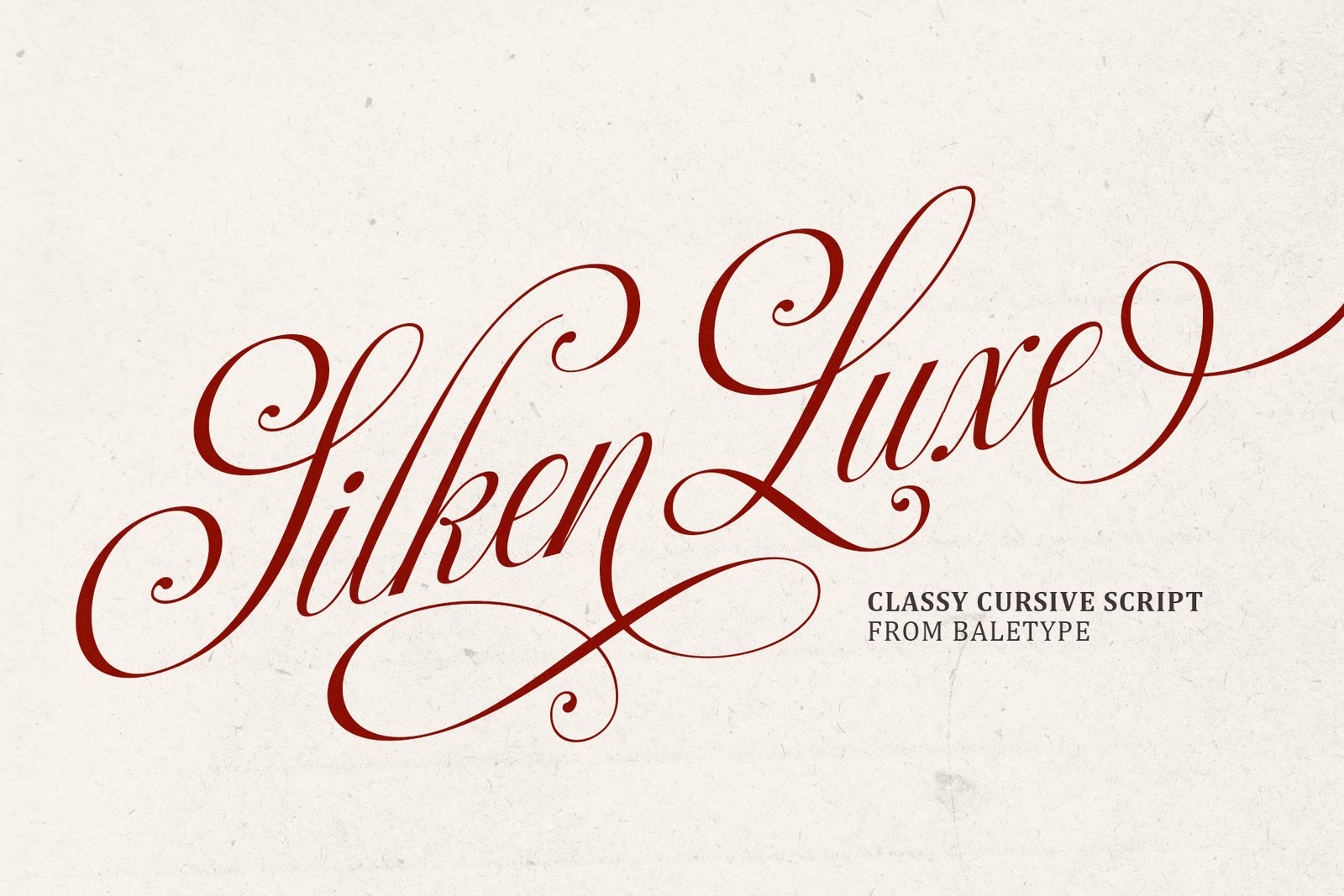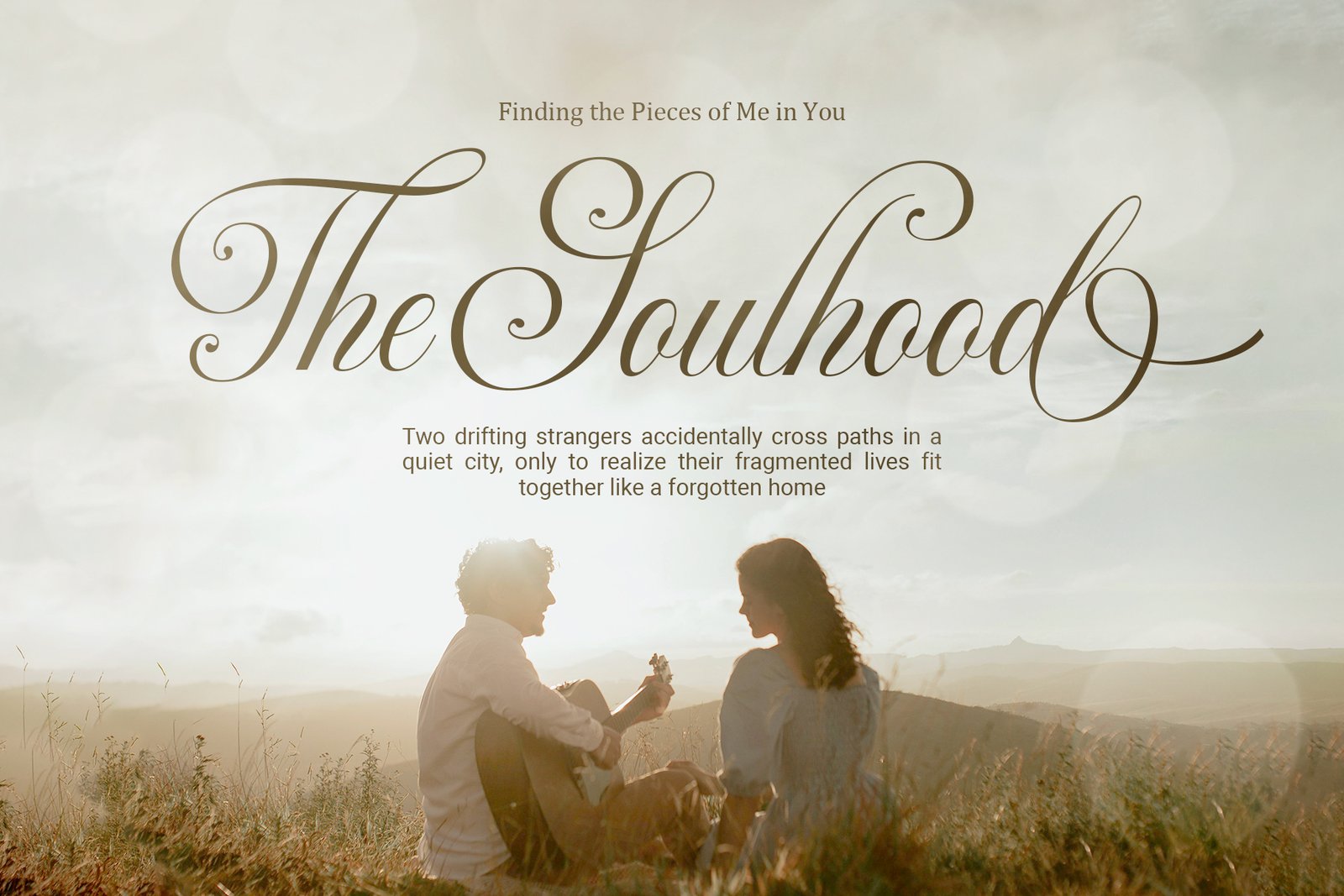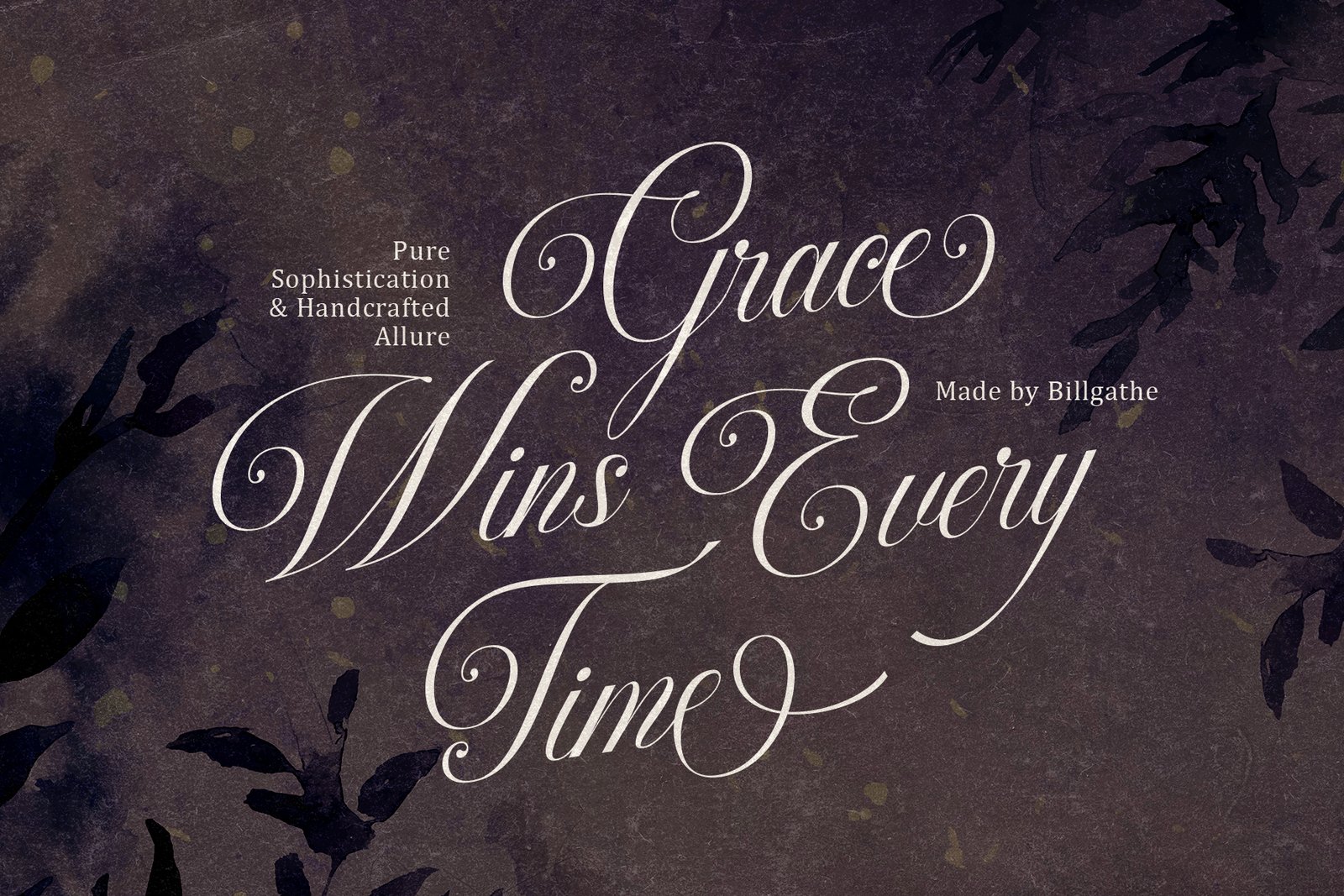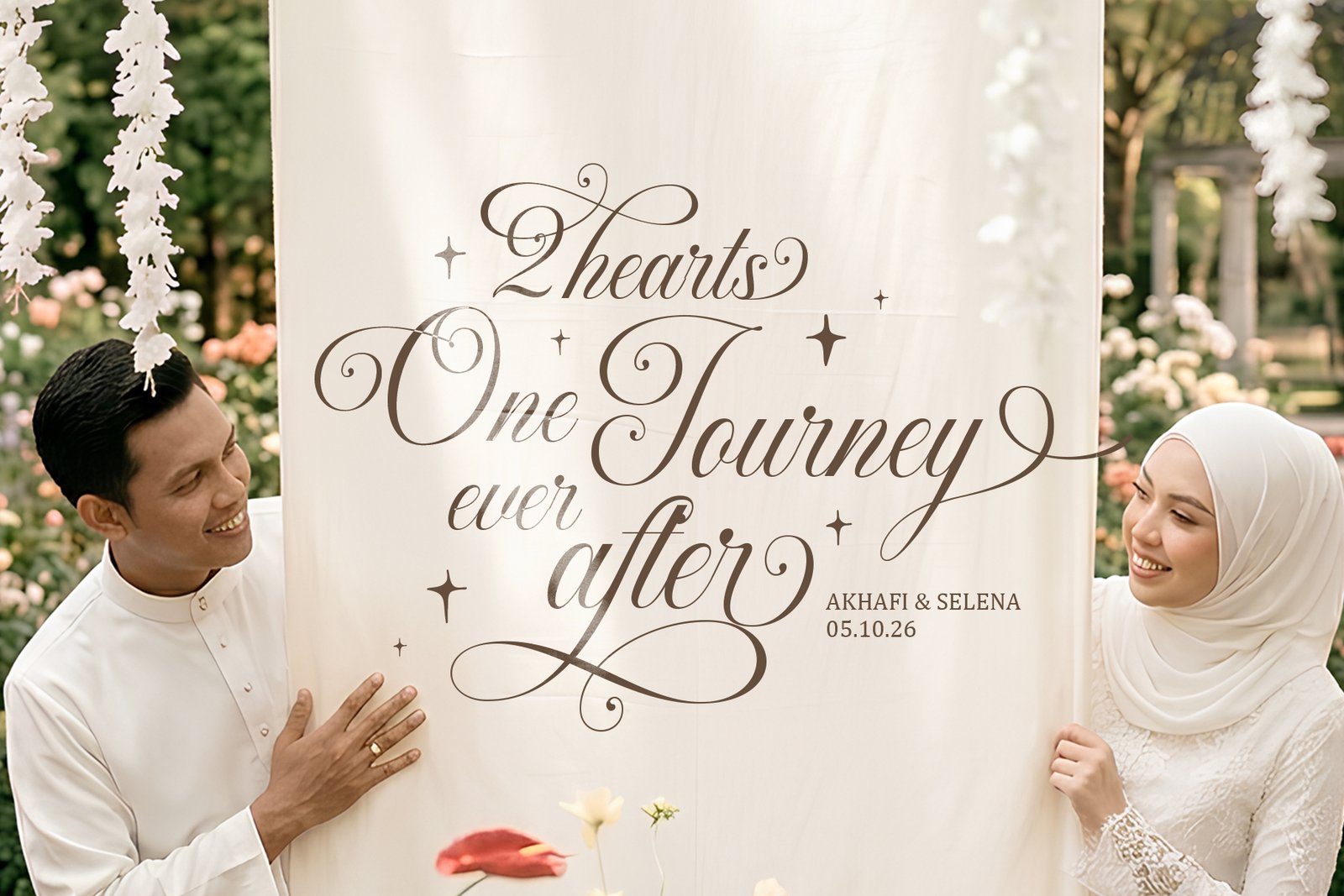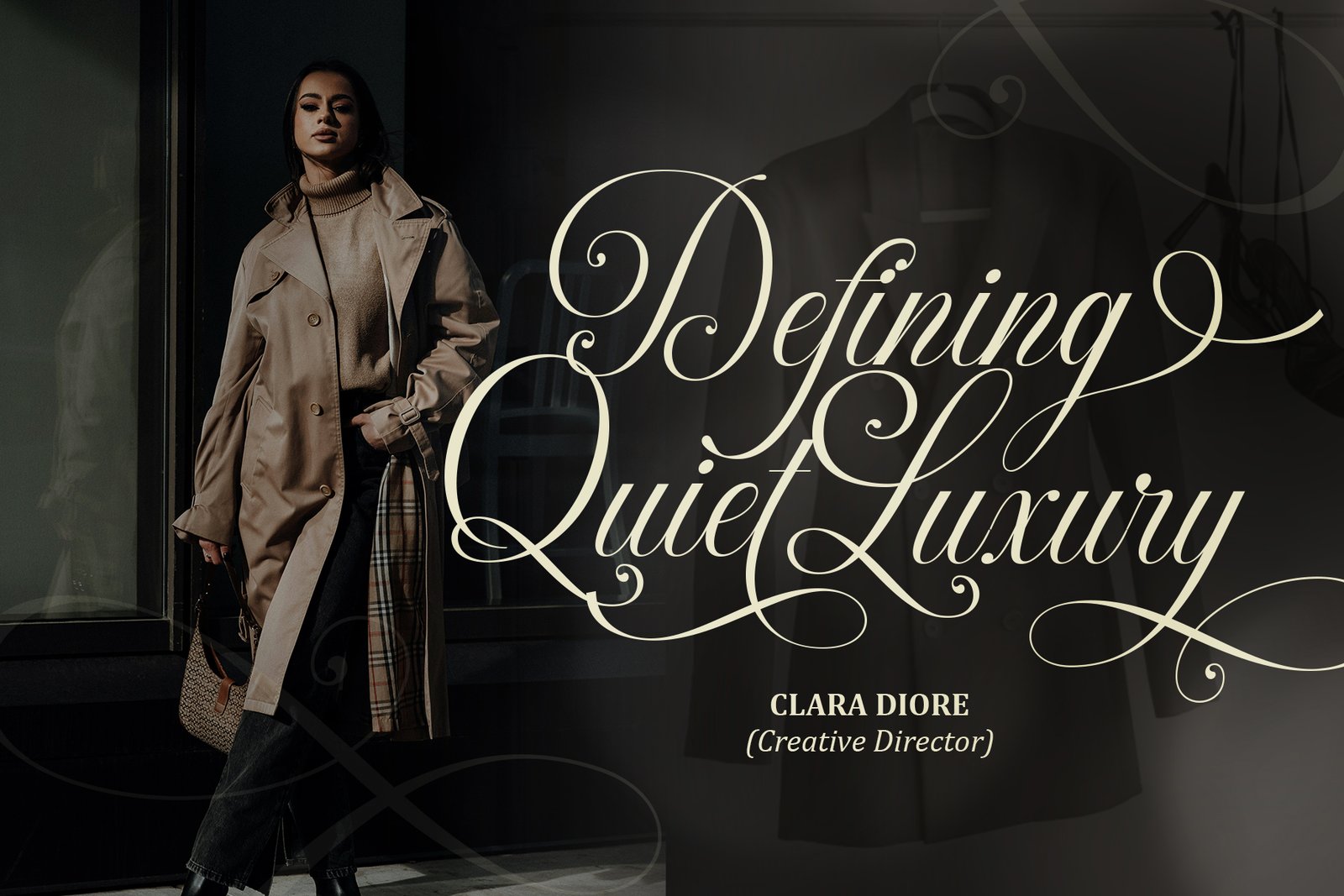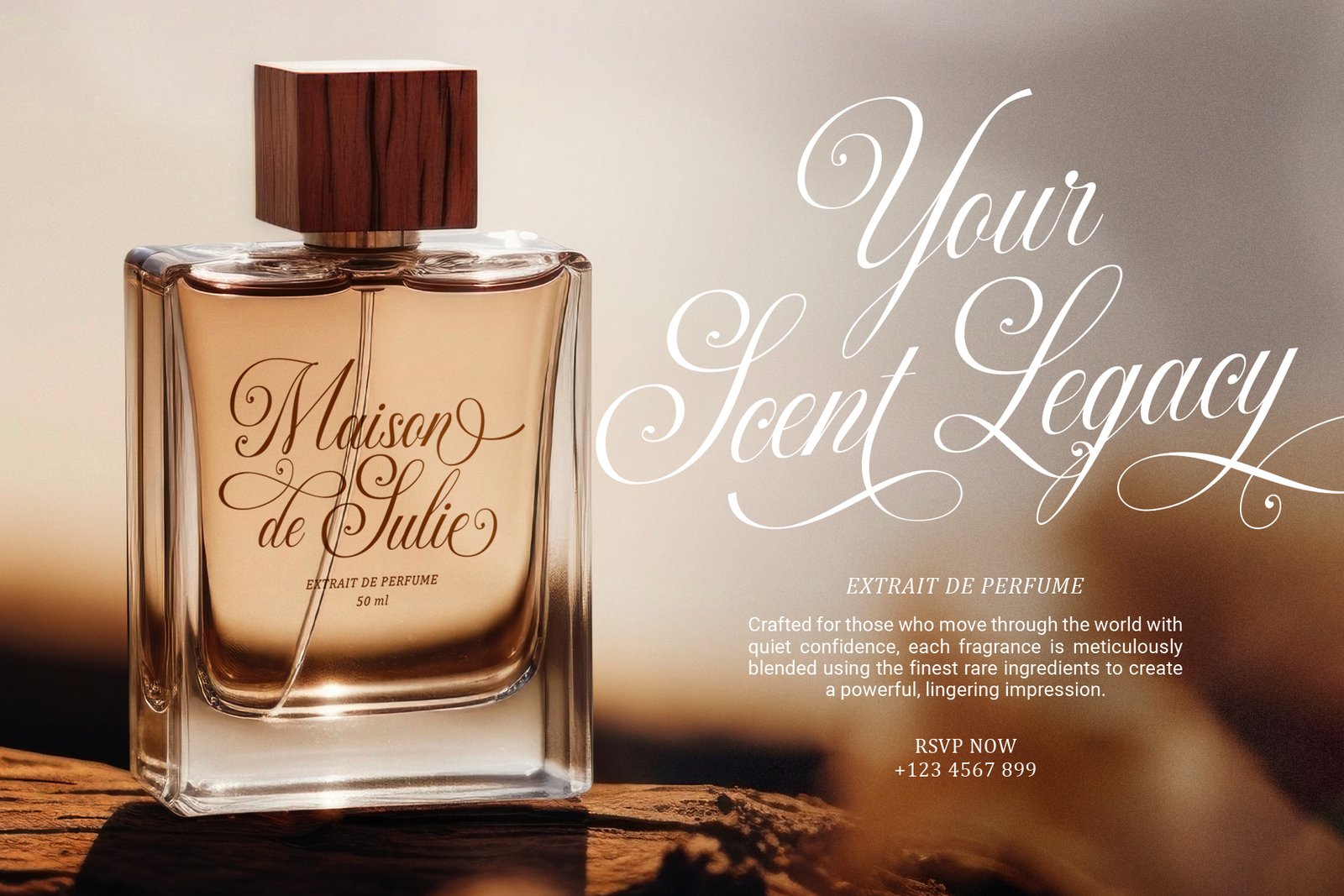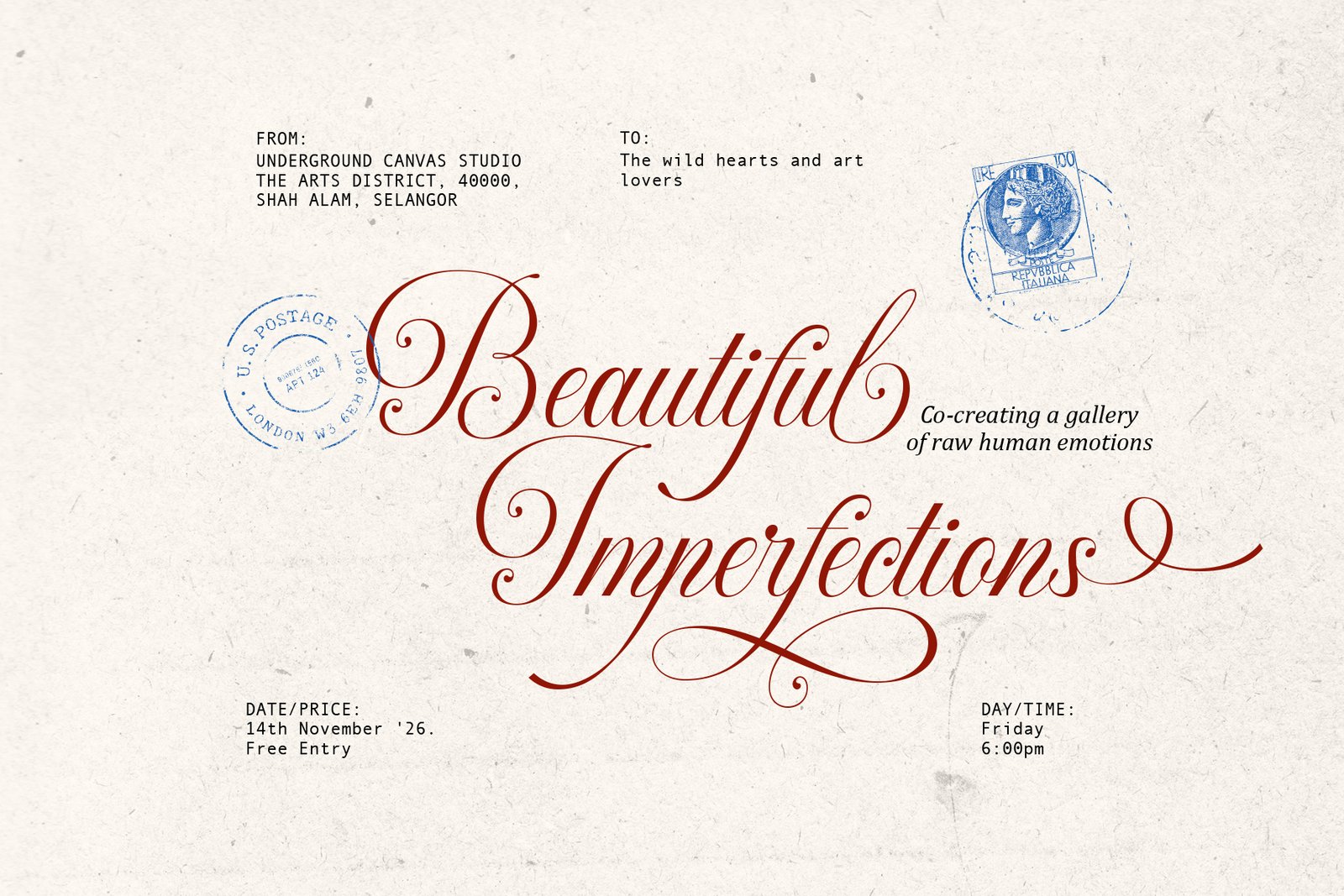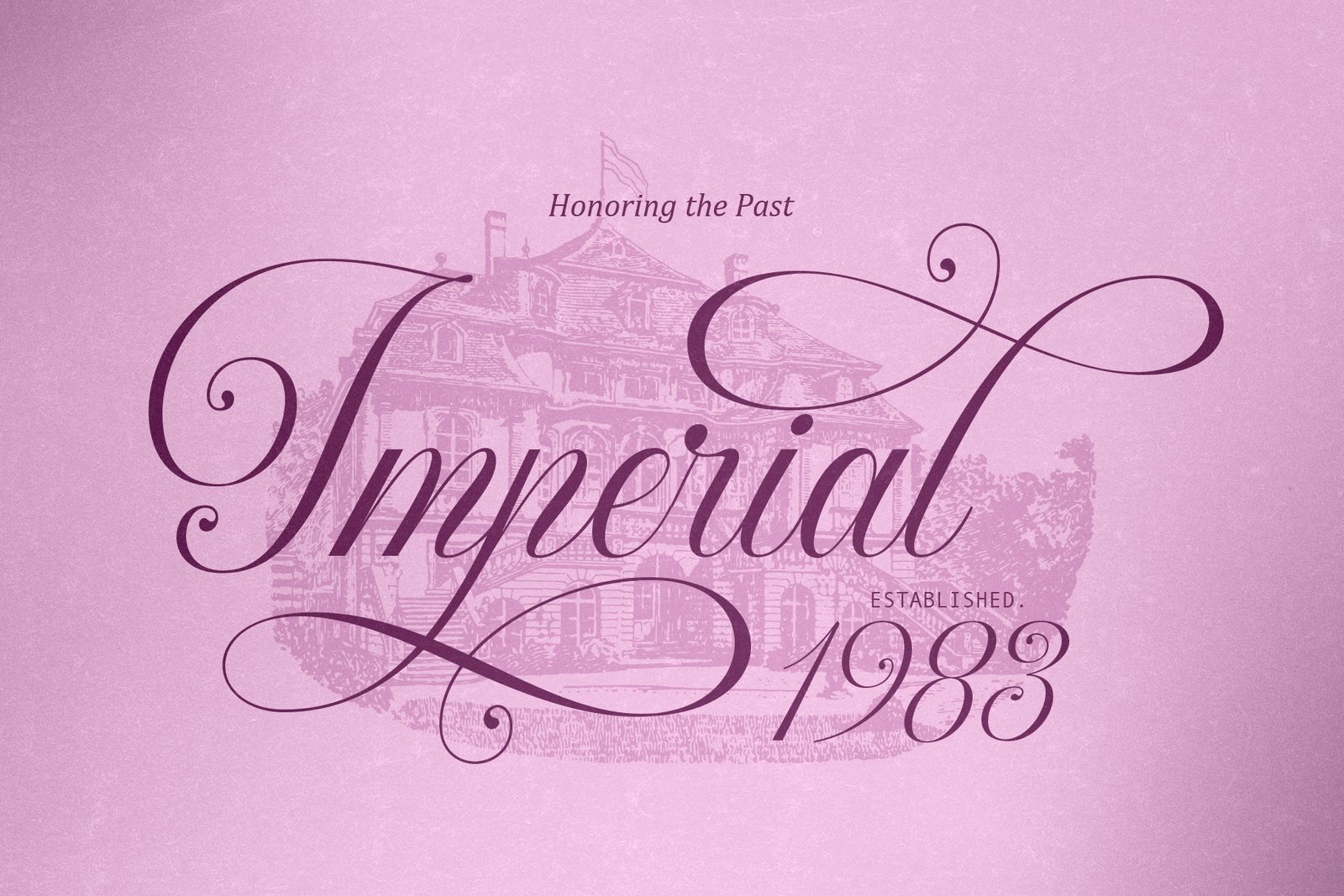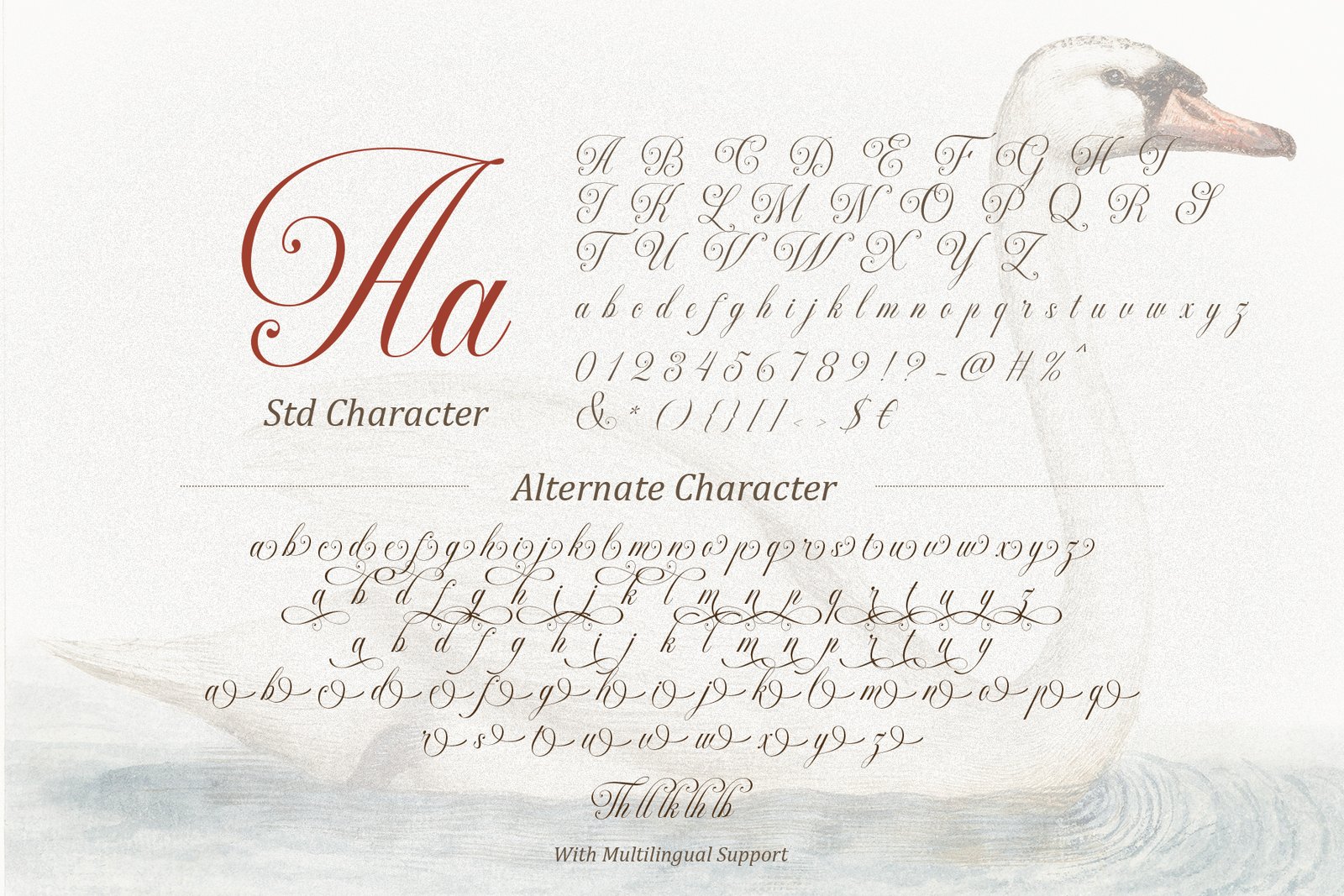
Introducing Silken Luxe, a luxurious script font crafted to bring elegance, romance, and sophistication to your designs. Featuring a beautiful collection of stylish alternates, Silken Luxe gives you the freedom to create a refined and graceful look with ease. Its flowing letterforms and sophisticated character make it perfect for wedding invitations, logos, branding, quotes, stationery, packaging, and other projects that call for a touch of luxury. Whether you’re creating something timeless and romantic or modern and elegant, this font adds a polished and distinctive feel to every design. With multilingual support included, this versatile font is ready to elevate creative projects for audiences around the world.
Silken Luxe – Classy Cursive Script
Introducing Silken Luxe, a luxurious script font crafted to bring elegance, romance, and sophistication to your designs.